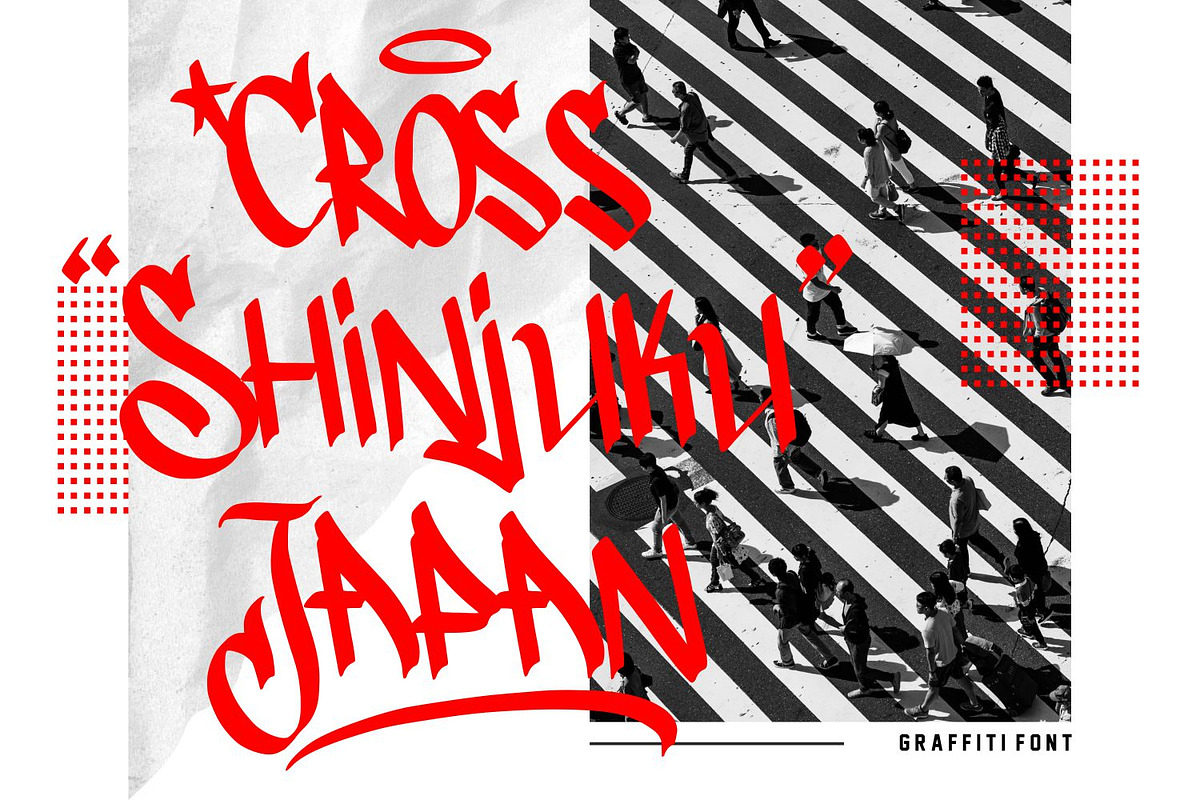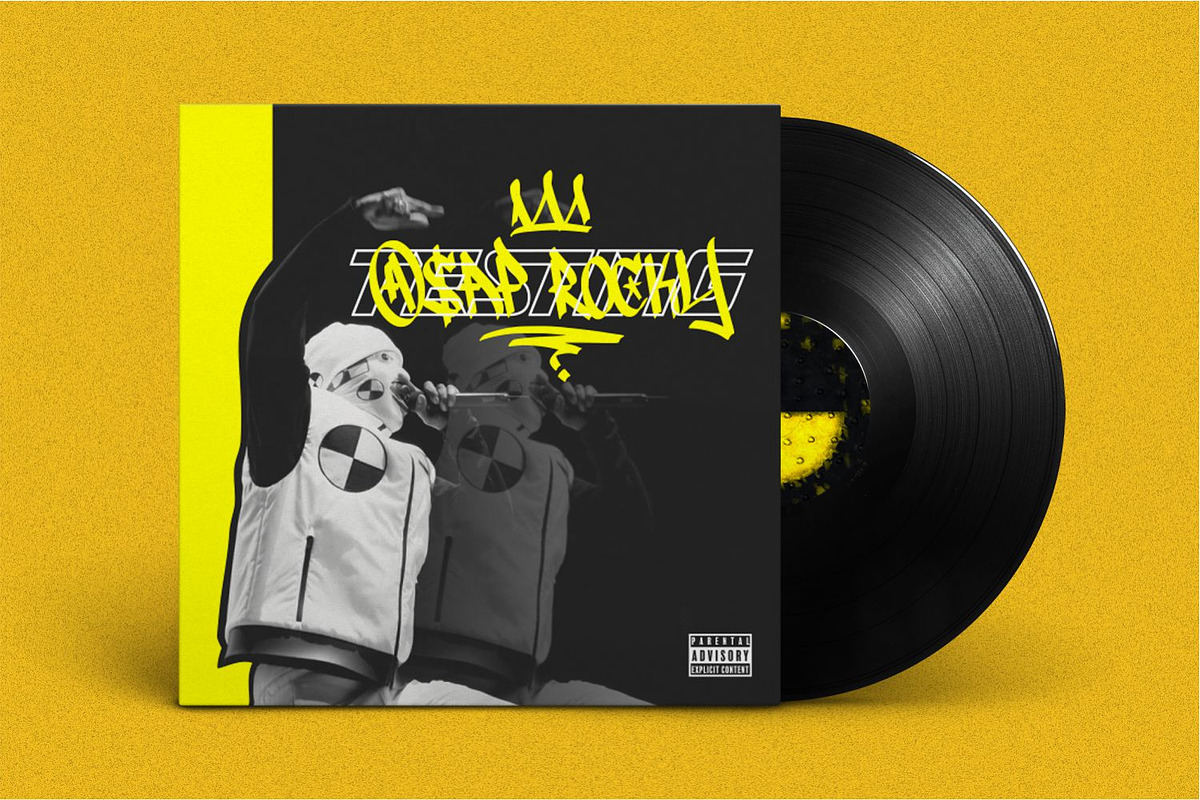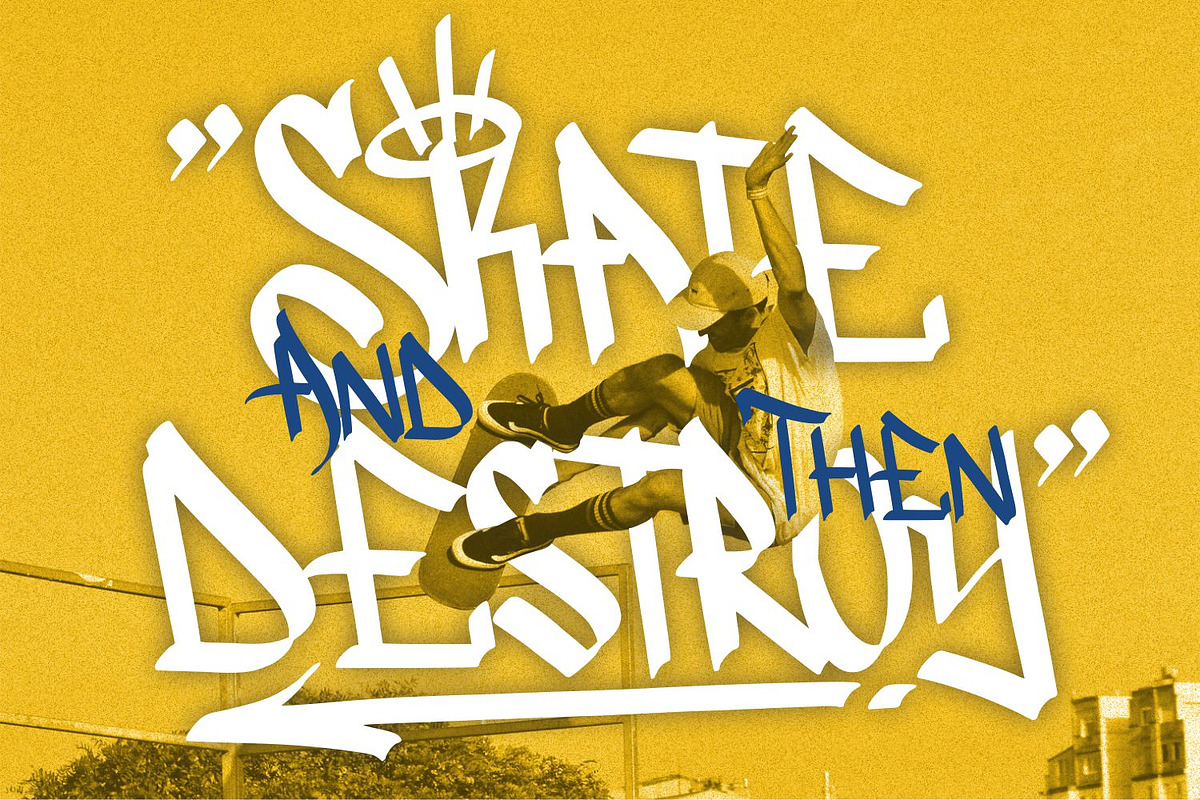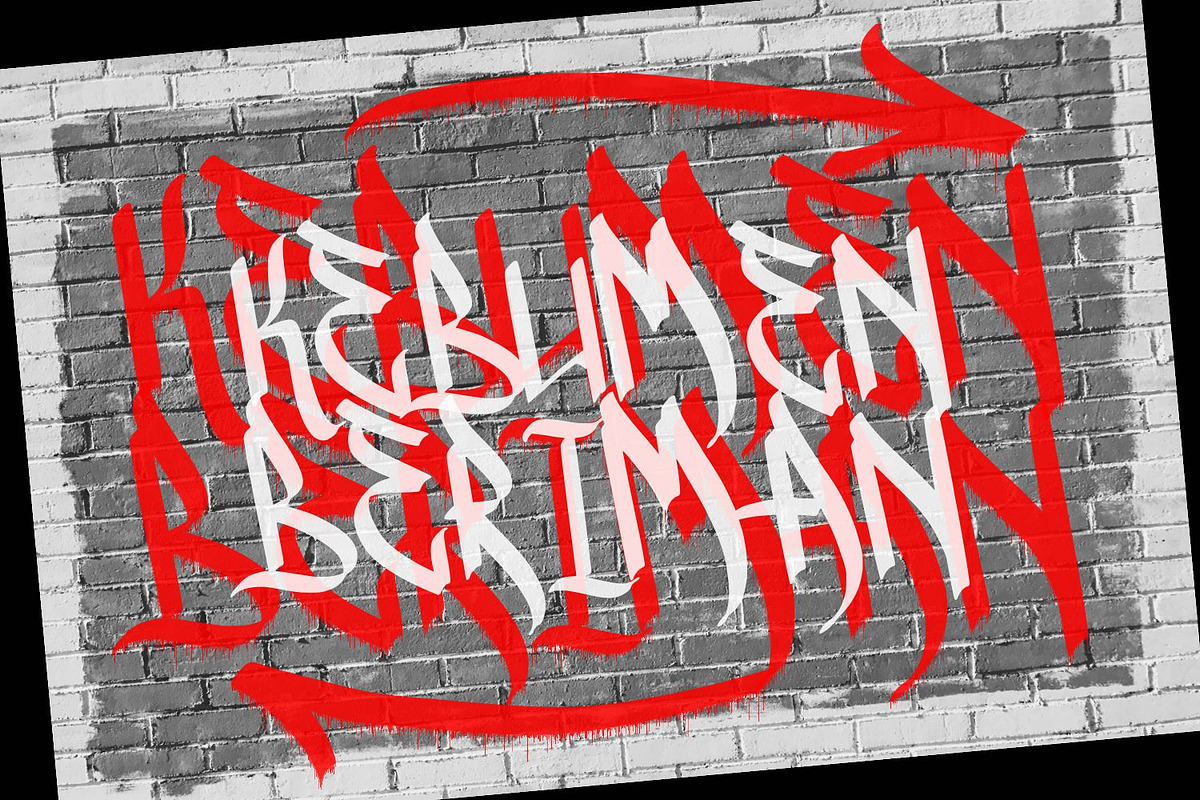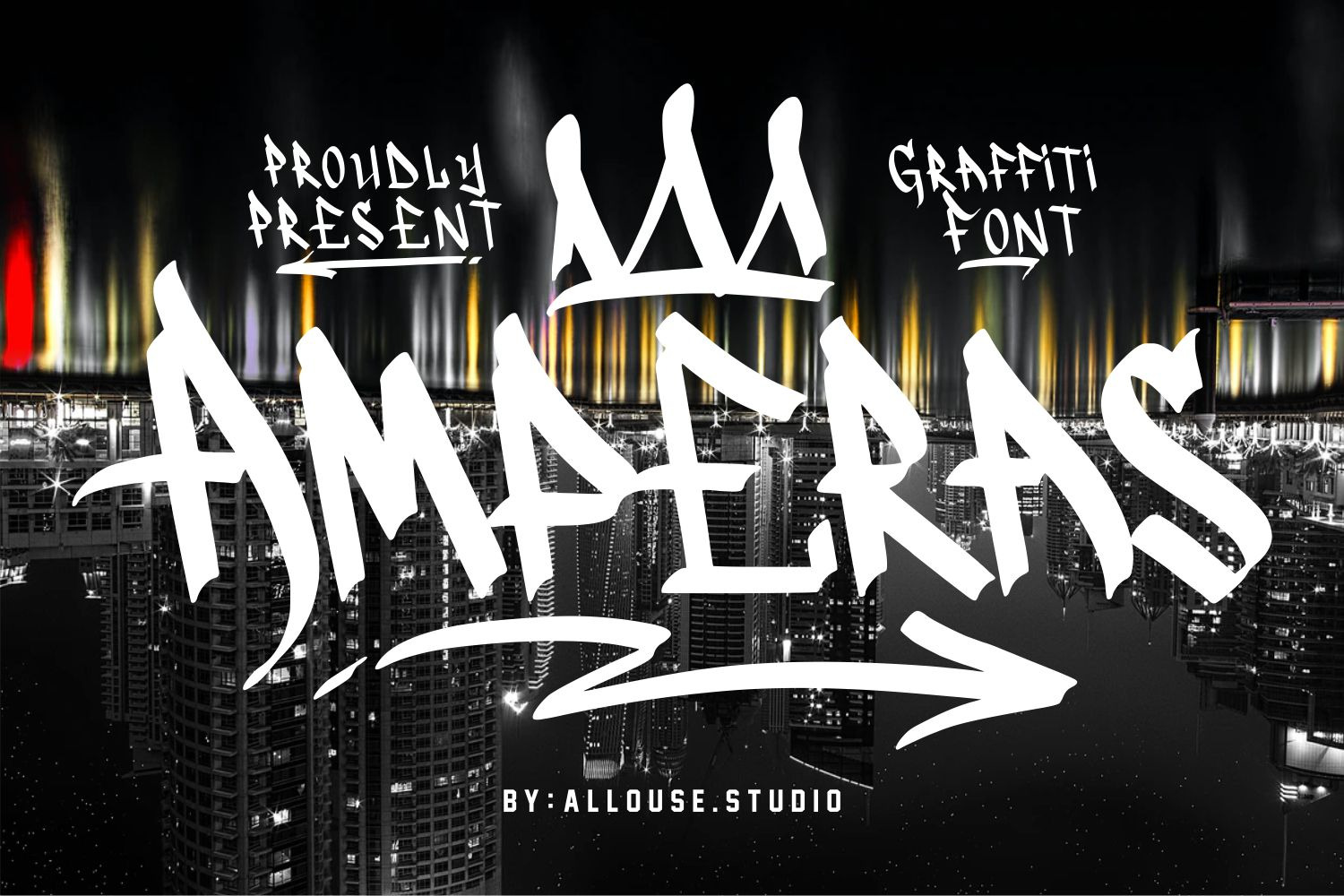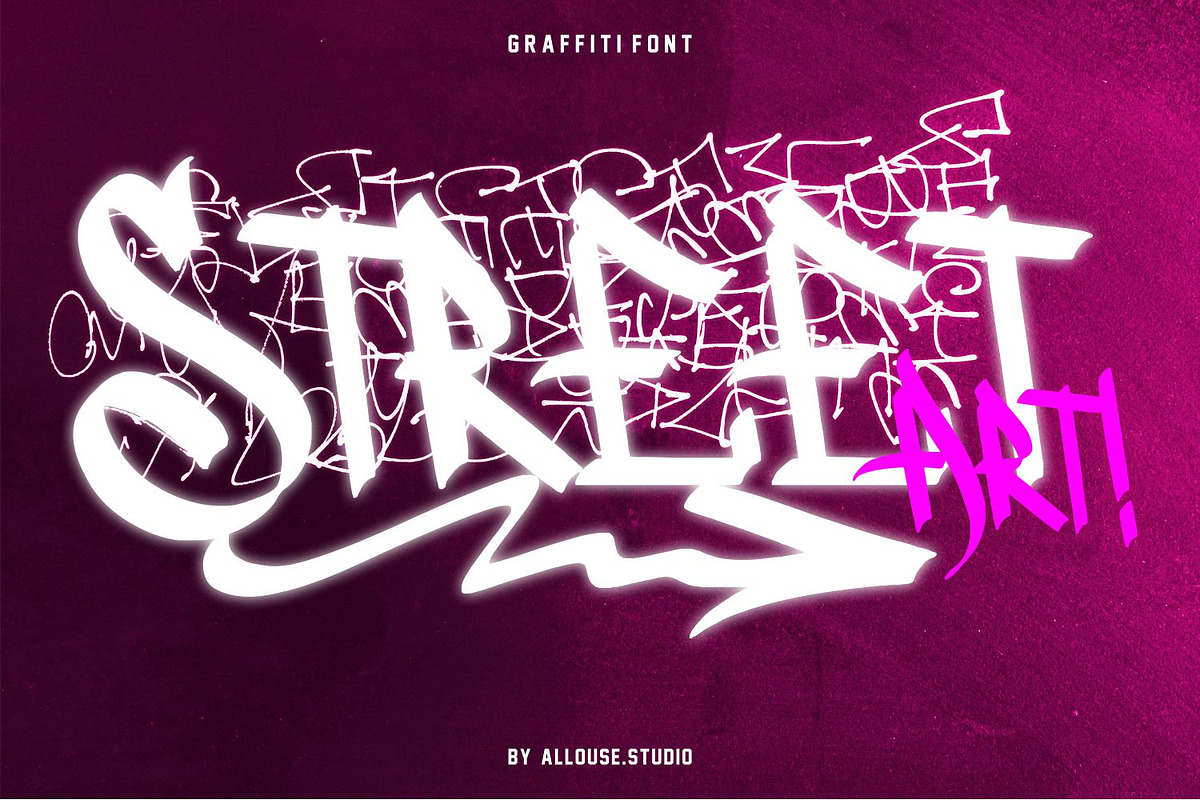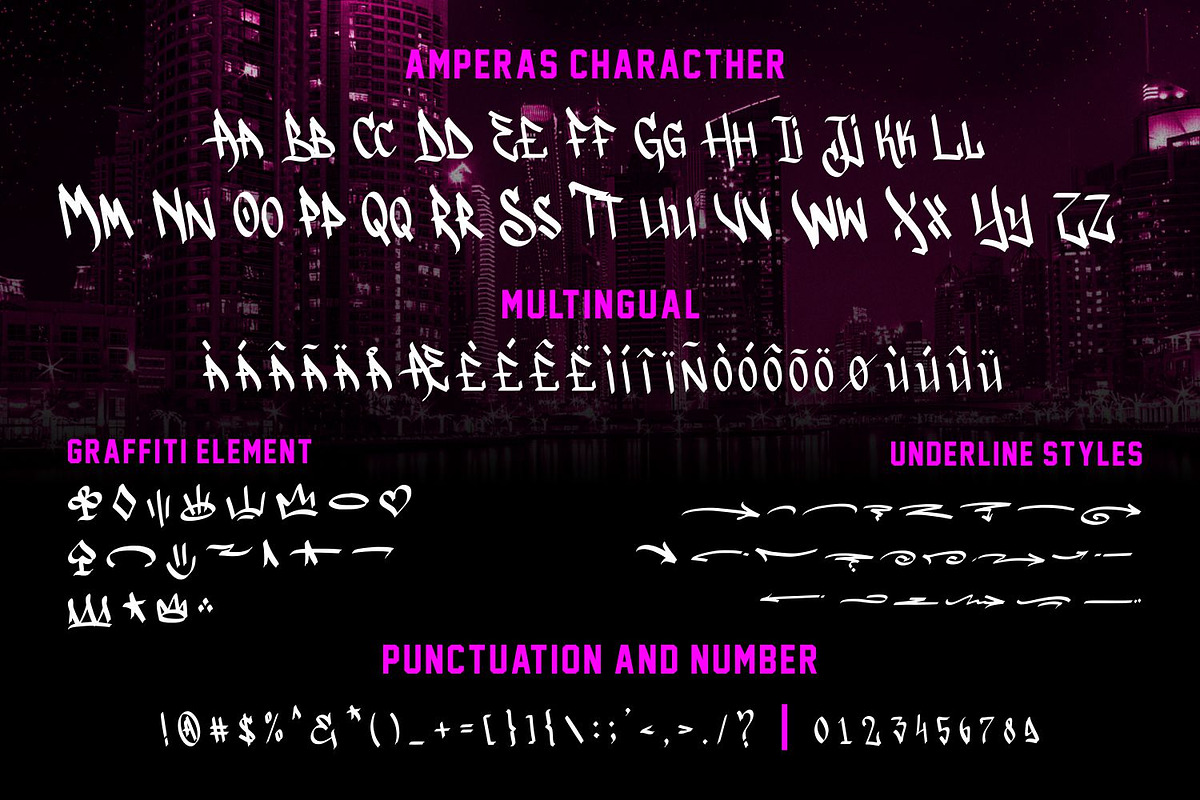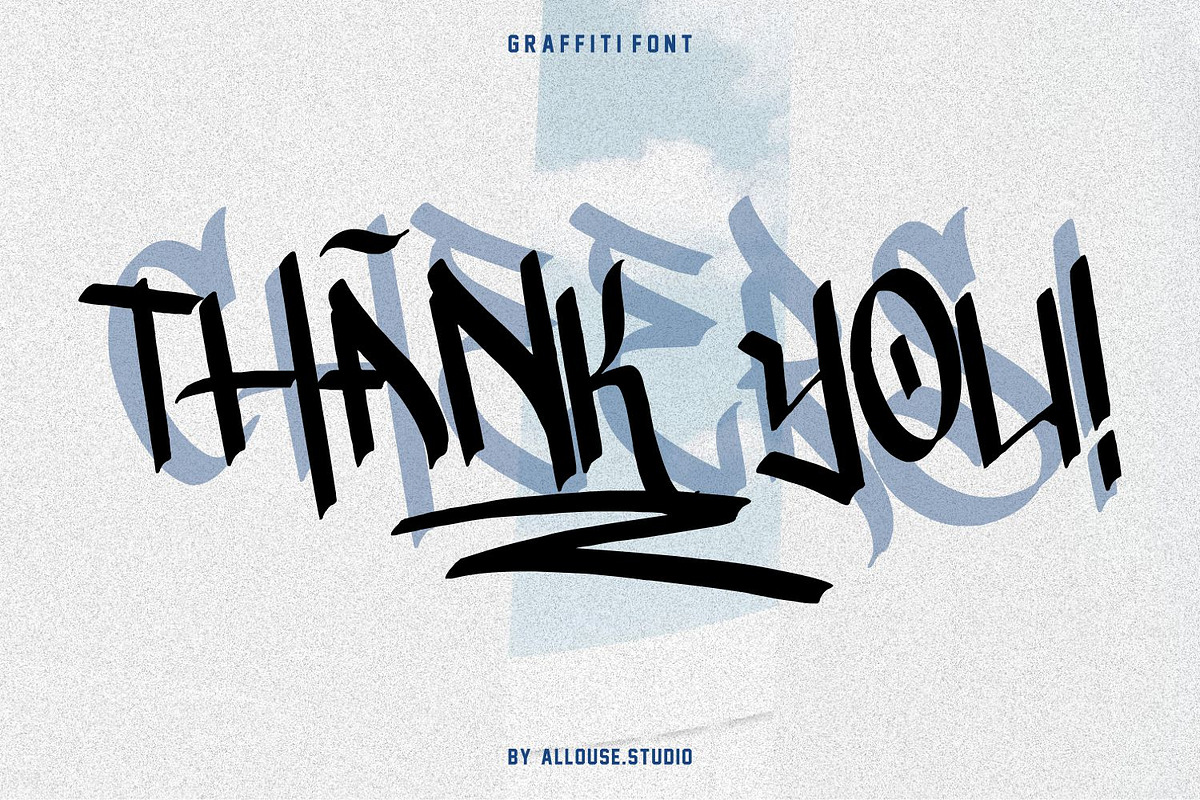
Amperas - Graffitti Font
Proudly Present, Amperas .
Amperas is a Graffiti Font.
Amperas is perfect for product packaging, branding project, megazine, social media, wedding, or just used to express words above the background.